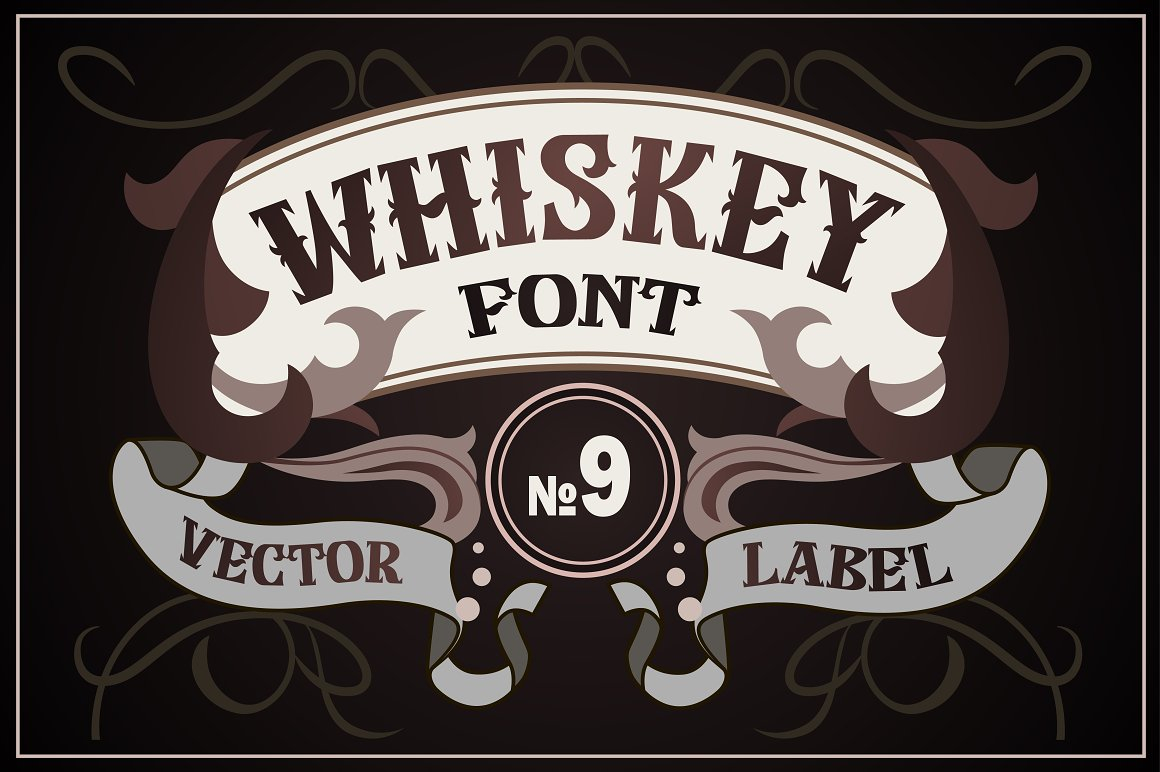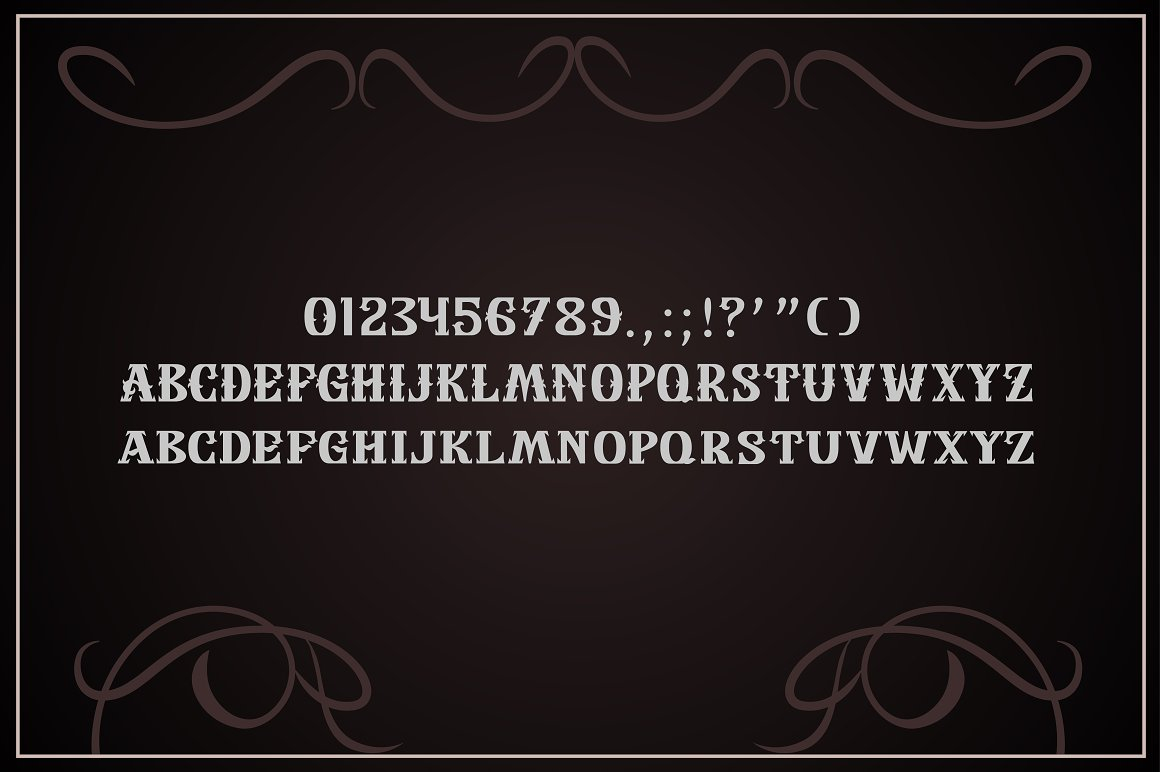
Whiskey Font
About Whiskey Font
Whiskey is a strong blackletter font. Use this font to add that special vintage touch to any design idea you can think of!